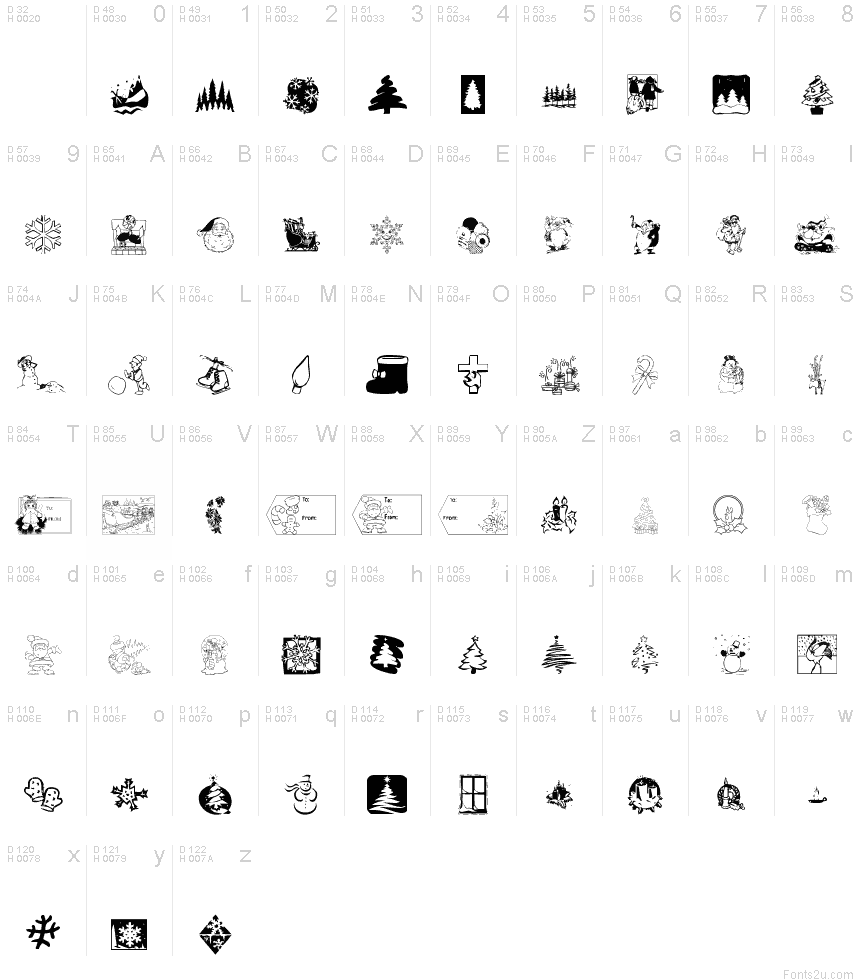
KR Christmas 2001
KR Christmas 2001 font by Katsfunfonts is a free festive dingbat typeface packed with wintry illustrations instead of letters. From a kid rolling a giant snowball to cuddly snowmen, gift-stacked sleighs, and glowing tree silhouettes, each glyph feels like a tiny holiday cartoon. The bold black‑and‑white shapes stay crisp at small sizes yet hold up beautifully when blown up for big, graphic moments.
Using KR Christmas 2001, you can whip up handmade‑feeling gift tags, party invites, classroom worksheets, social posts, greeting cards, or quick icons for holiday menus and programs. This free font works especially well dropped next to a clean sans serif wordmark or set huge as stand‑alone art. Try it in a single color for easy printing, then layer with translucent reds or greens for a richer, cozy look.